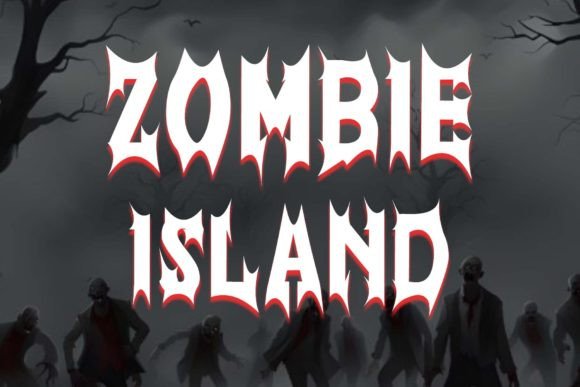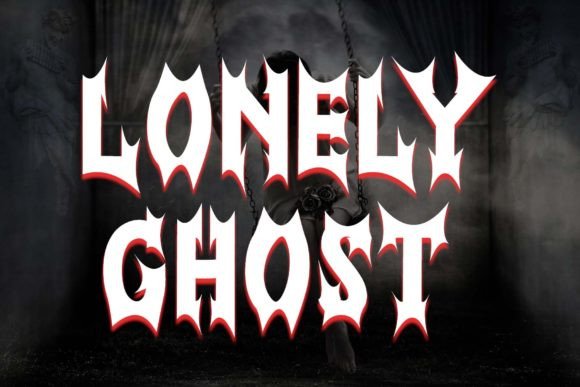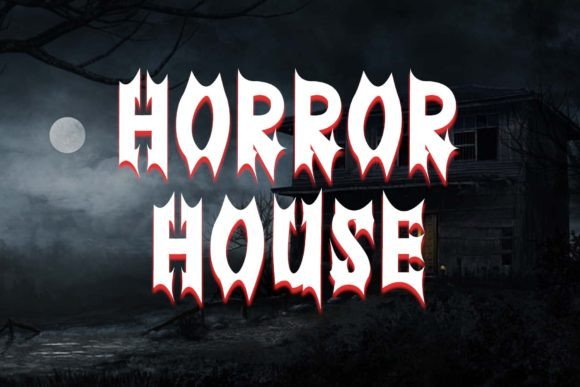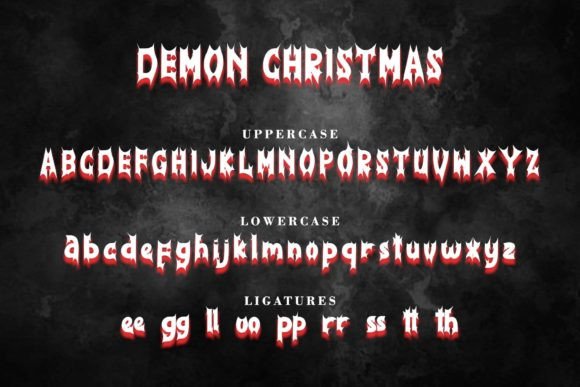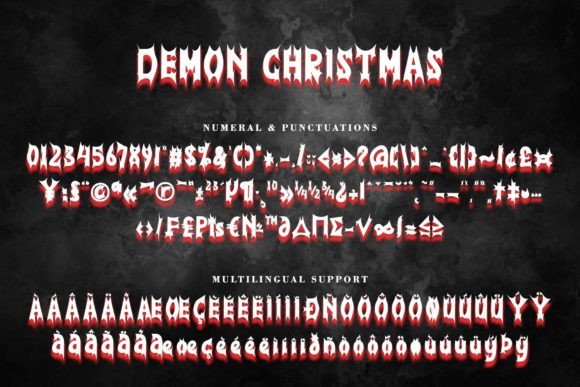
Demon Christmas Font: A Spooky Horror Blackletter Font for Your Festive Needs
Are you looking for a font that captures the essence of Halloween and Christmas? Look no further than the Demon Christmas Font, a spooky horror blackletter font that’s perfect for creating eerie and festive designs. In this article, we’ll dive into the features and benefits of this font, and explore its various uses for designers and crafters.
What is Demon Christmas Font?
Demon Christmas Font is a horror blackletter font that’s designed to evoke a sense of spookiness and eeriness. With its bold and dramatic lettering, this font is perfect for creating designs that are both haunting and festive. Whether you’re designing invitations, posters, or social media graphics, Demon Christmas Font is sure to make your designs stand out.
Key Features of Demon Christmas Font
Demon Christmas Font comes with a range of features that make it a versatile and practical choice for designers. Some of its key features include:
- Uppercase and lowercase letters
- Ligatures for a more natural flow
- Numerals and punctuation marks
- Multilingual support for a wide range of languages
With these features, you can create a wide range of designs, from simple text-based graphics to more complex and intricate designs.
Uses for Demon Christmas Font
Demon Christmas Font is a versatile font that can be used for a variety of design projects. Here are some ideas to get you started:
- Halloween Invitations: Create spooky and festive invitations for Halloween parties and events.
- Christmas Cards: Design eerie and festive Christmas cards that are sure to stand out.
- Metal Concert Posters: Create bold and dramatic posters for metal concerts and festivals.
- Horror Movie Posters: Design eye-catching posters for horror movies and TV shows.
- Horror Comics: Use Demon Christmas Font to create spooky and atmospheric text for horror comics.
- Autumn Decor: Add a touch of spookiness to your autumn decor with Demon Christmas Font.
Benefits of Using Demon Christmas Font
There are many benefits to using Demon Christmas Font for your design projects. Here are a few:
- Unique and Eye-Catching: Demon Christmas Font is a unique and eye-catching font that’s sure to stand out from the crowd.
- Versatile: With its range of features and uses, Demon Christmas Font is a versatile font that can be used for a wide range of design projects.
- High-Quality: Demon Christmas Font is a high-quality font that’s designed to produce crisp and clear text.
Tips for Using Demon Christmas Font
Here are a few tips for using Demon Christmas Font:
- Use it Sparingly: While Demon Christmas Font is a beautiful font, it can be overwhelming if used too much. Use it sparingly to create a sense of drama and emphasis.
- Experiment with Colors: Demon Christmas Font looks great in a range of colors, from bold and bright to dark and muted. Experiment with different colors to find the one that works best for your design.
- Pair it with Other Fonts: Demon Christmas Font can be paired with other fonts to create a unique and interesting design. Try pairing it with a sans-serif font for a bold and modern look.
Demon Christmas Font is a spooky horror blackletter font that’s perfect for creating eerie and festive designs. With its range of features and uses, it’s a versatile font that can be used for a wide range of design projects. Whether you’re a designer or crafter, Demon Christmas Font is a great addition to your font library. So why not give it a try and see what kind of spooky and festive designs you can create?